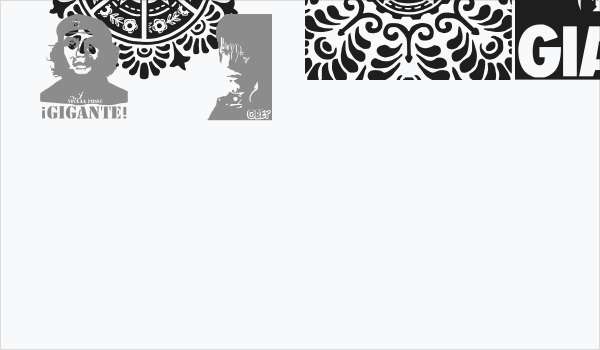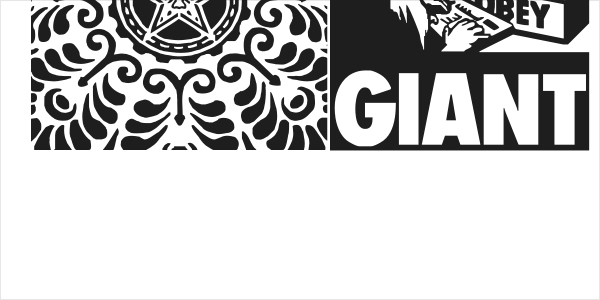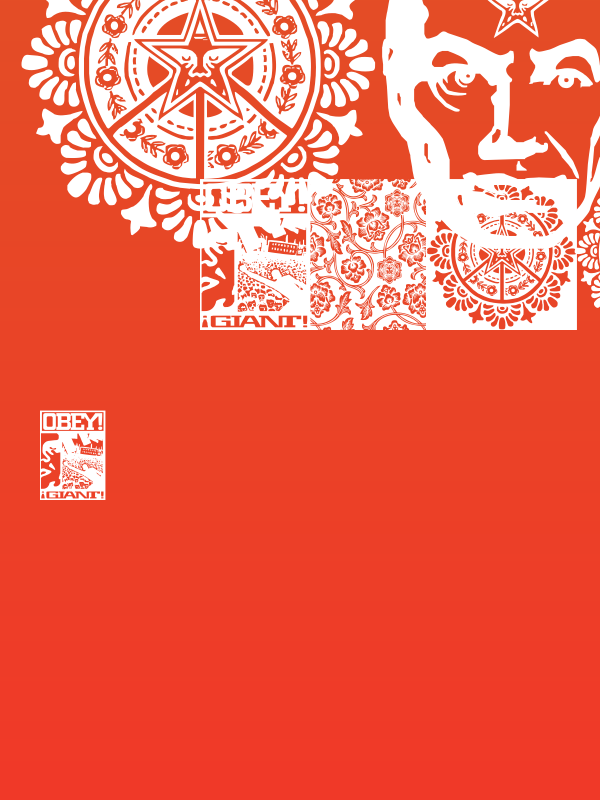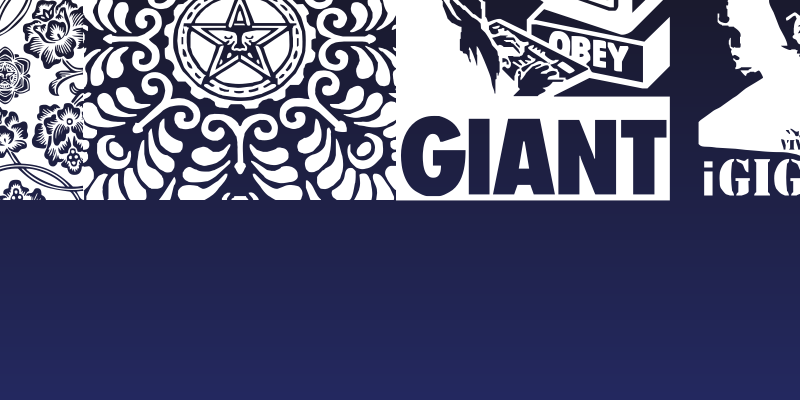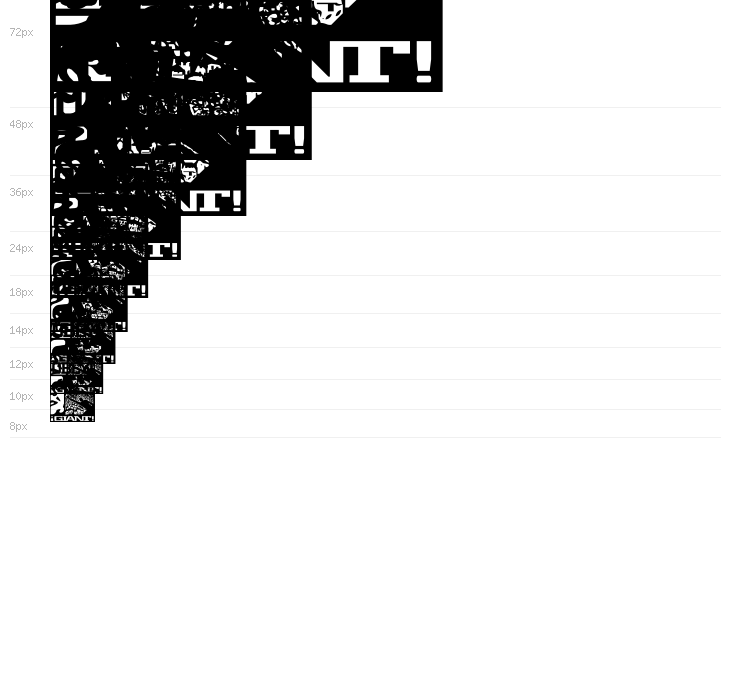
ObeyXL2Caps Font
Highly decorative and illustrative font featuring bold, graphic images and portraits within each character block, inspired by street art and propaganda poster aesthetics. Each letterform is uniquely filled with intricate artwork, making the set visually complex and impactful.
Overall StyleDecorative, Urban, Artistic
Use CaseHeadlines, Logos, Posters, Artistic projects
Proposed ProjectsPosters, album covers, streetwear branding, event promotions, art installations.